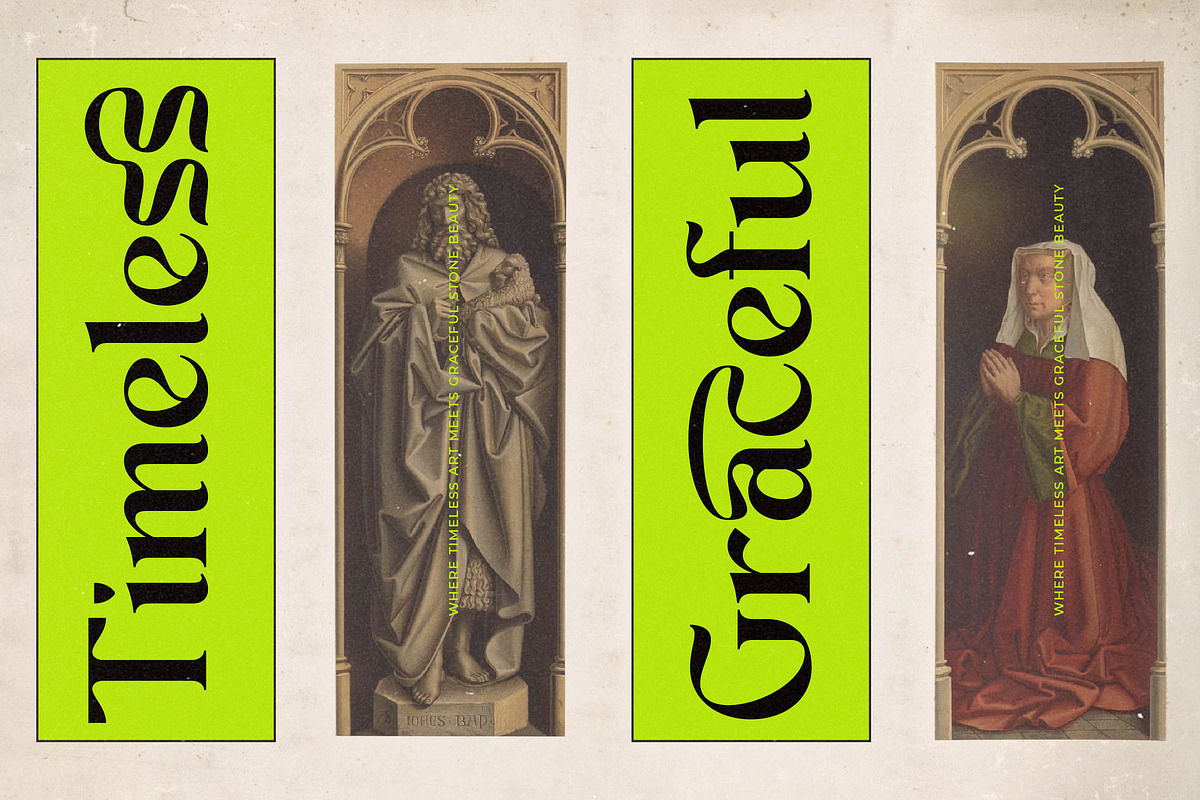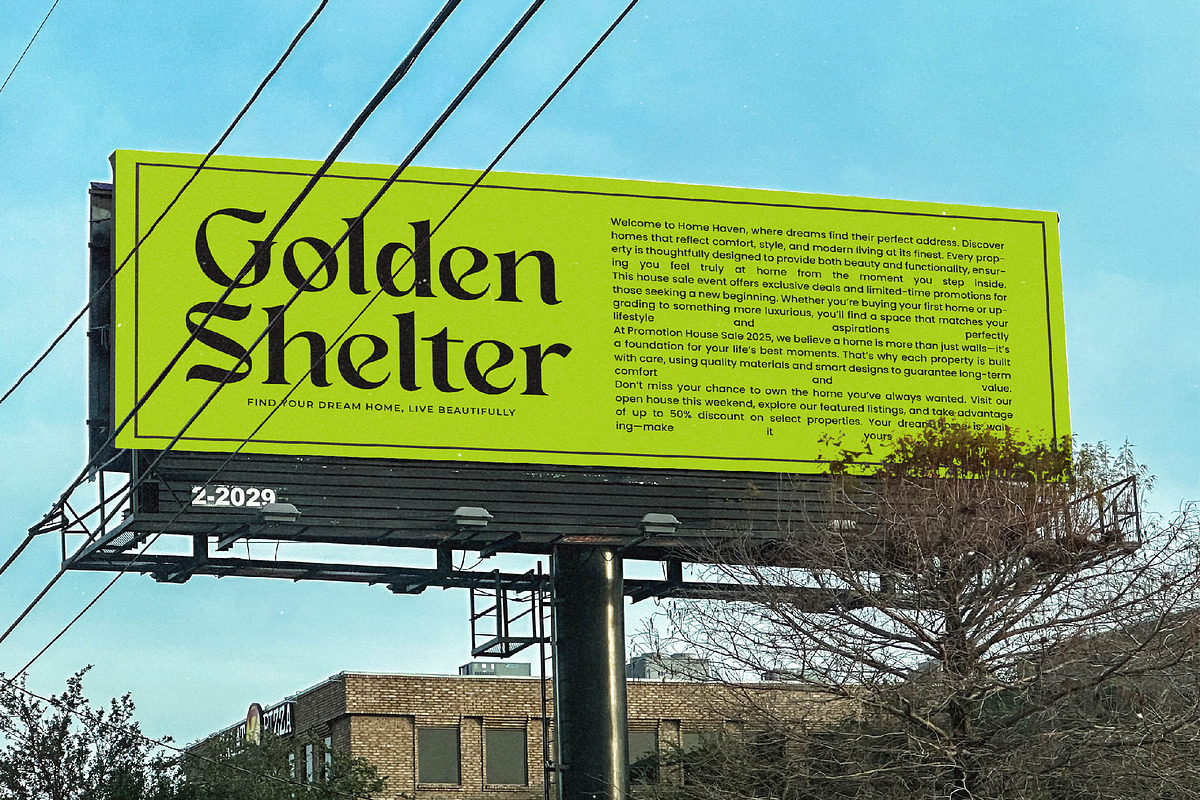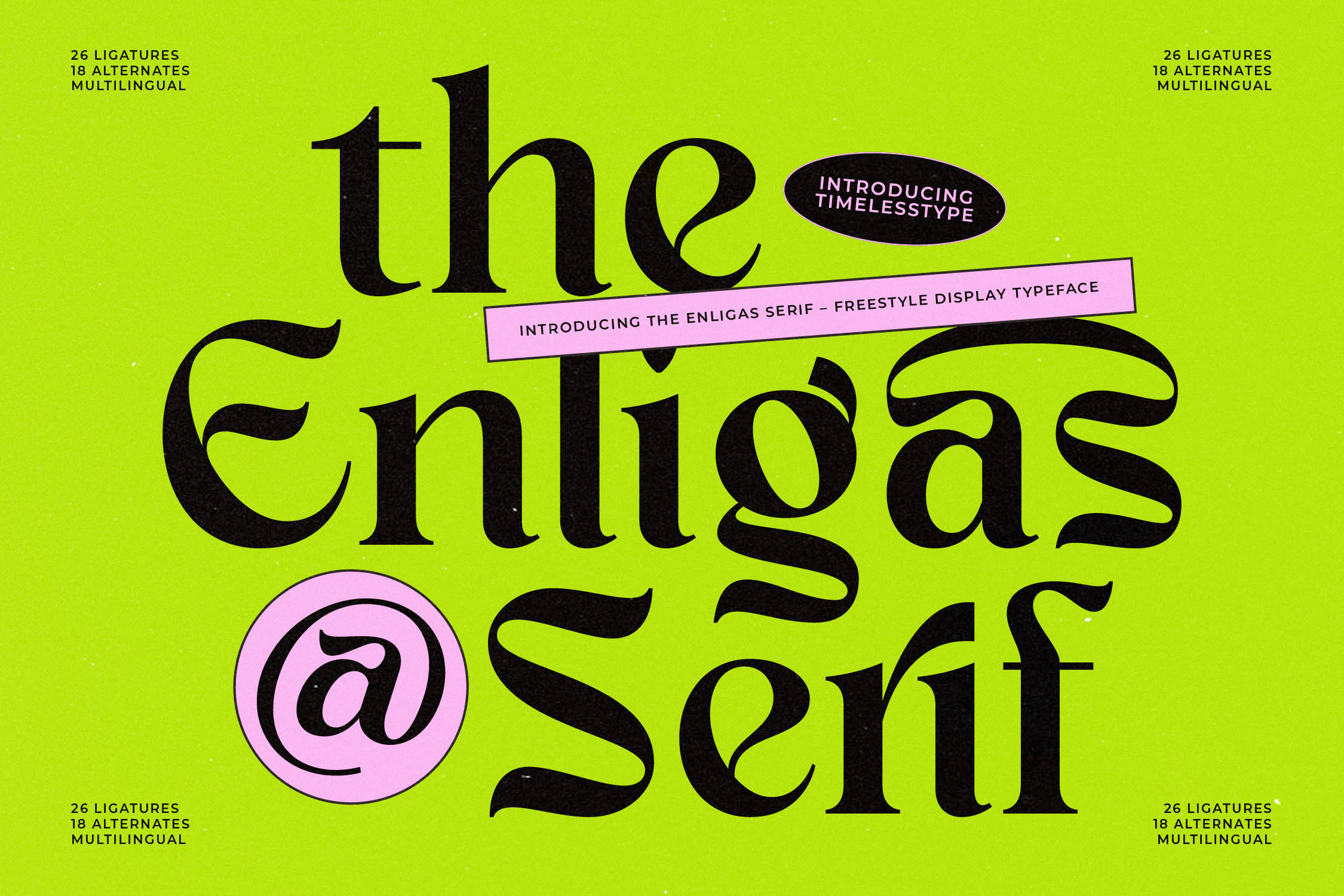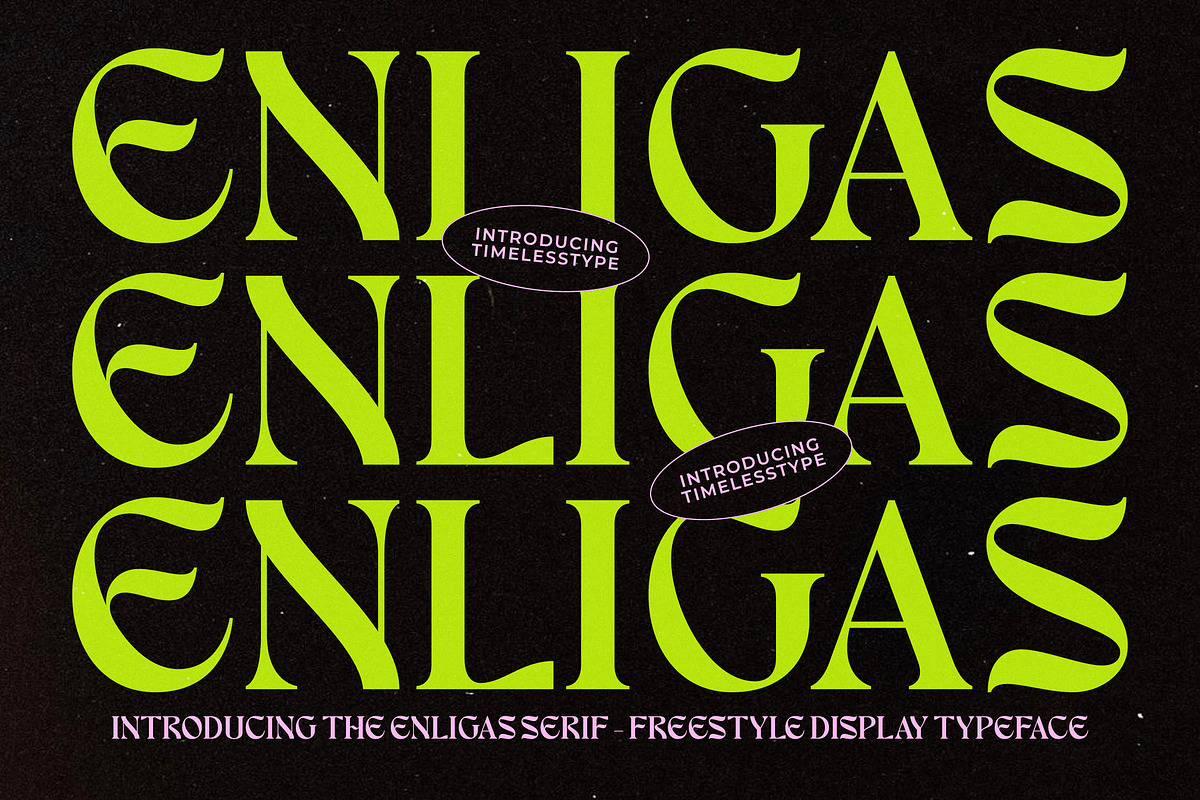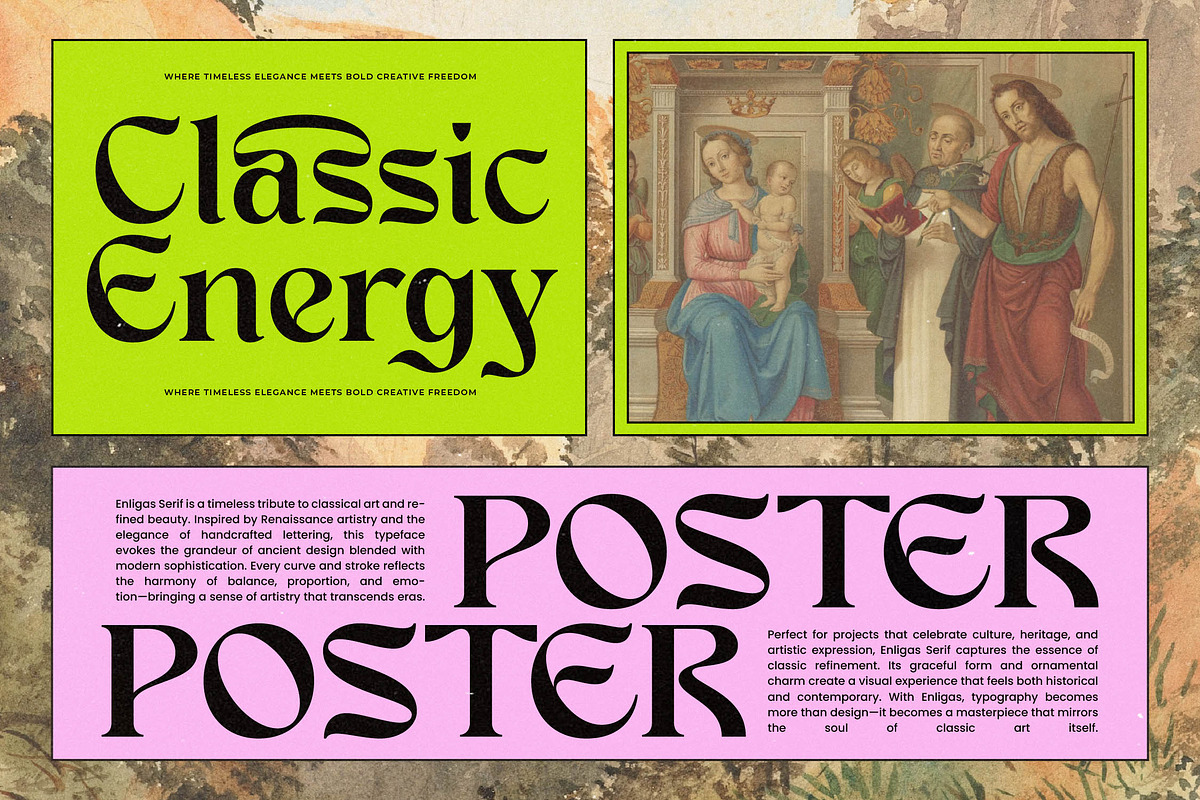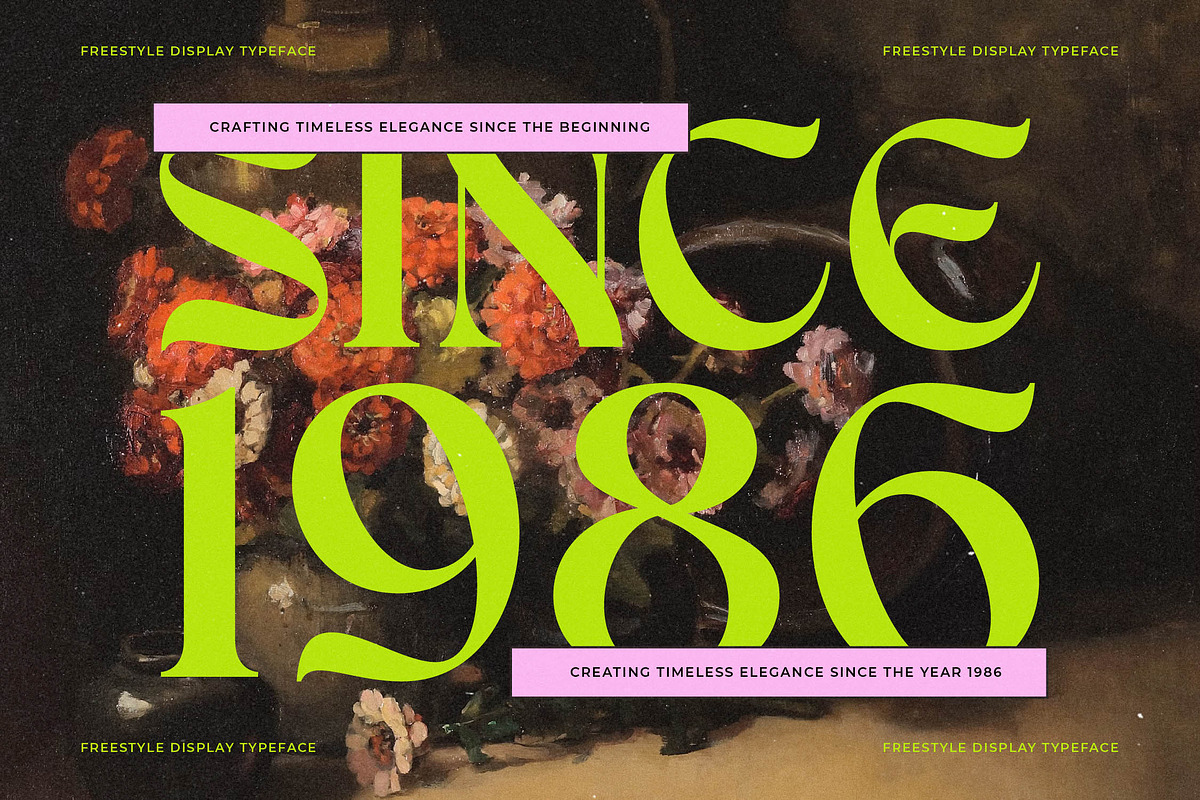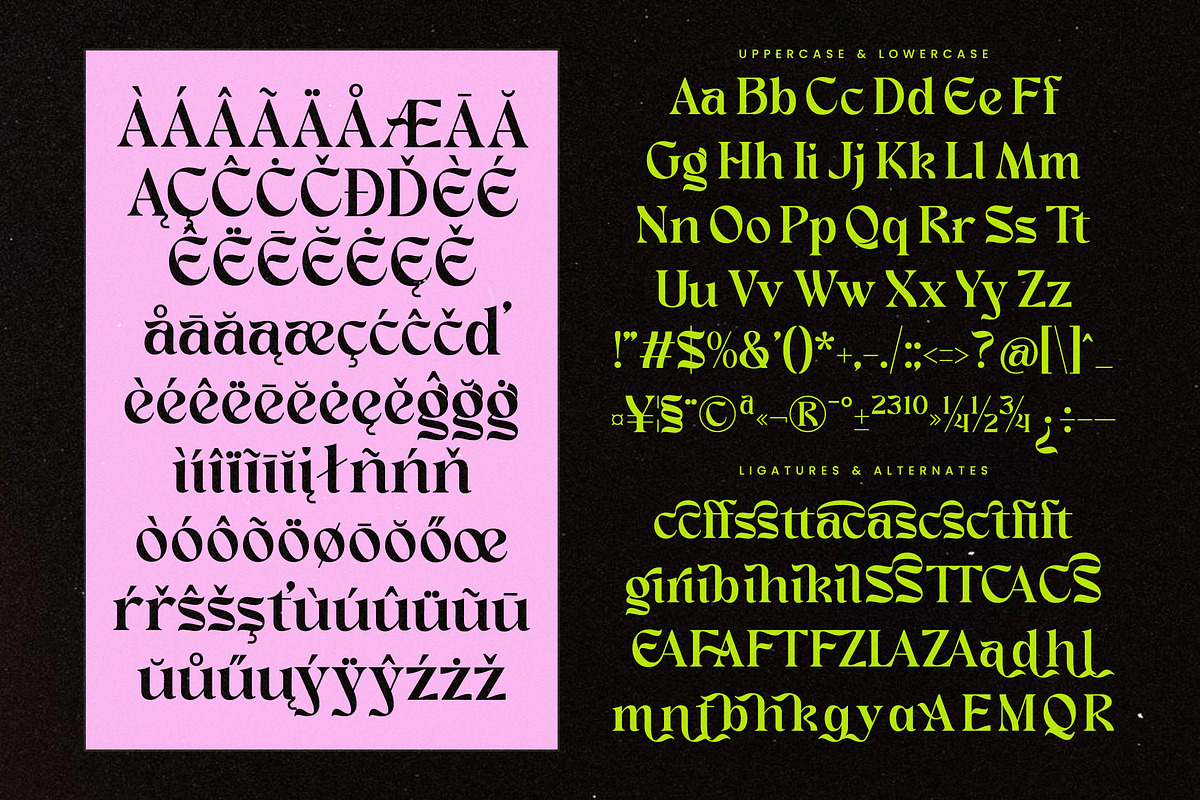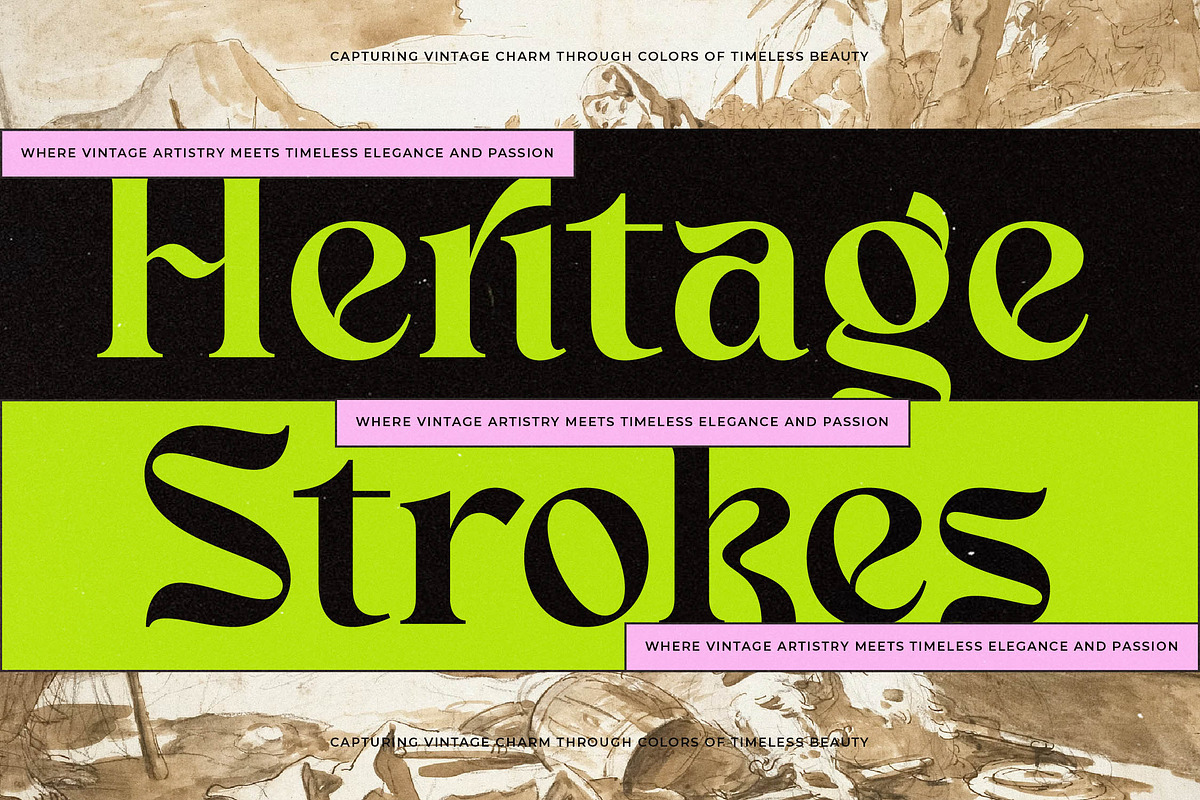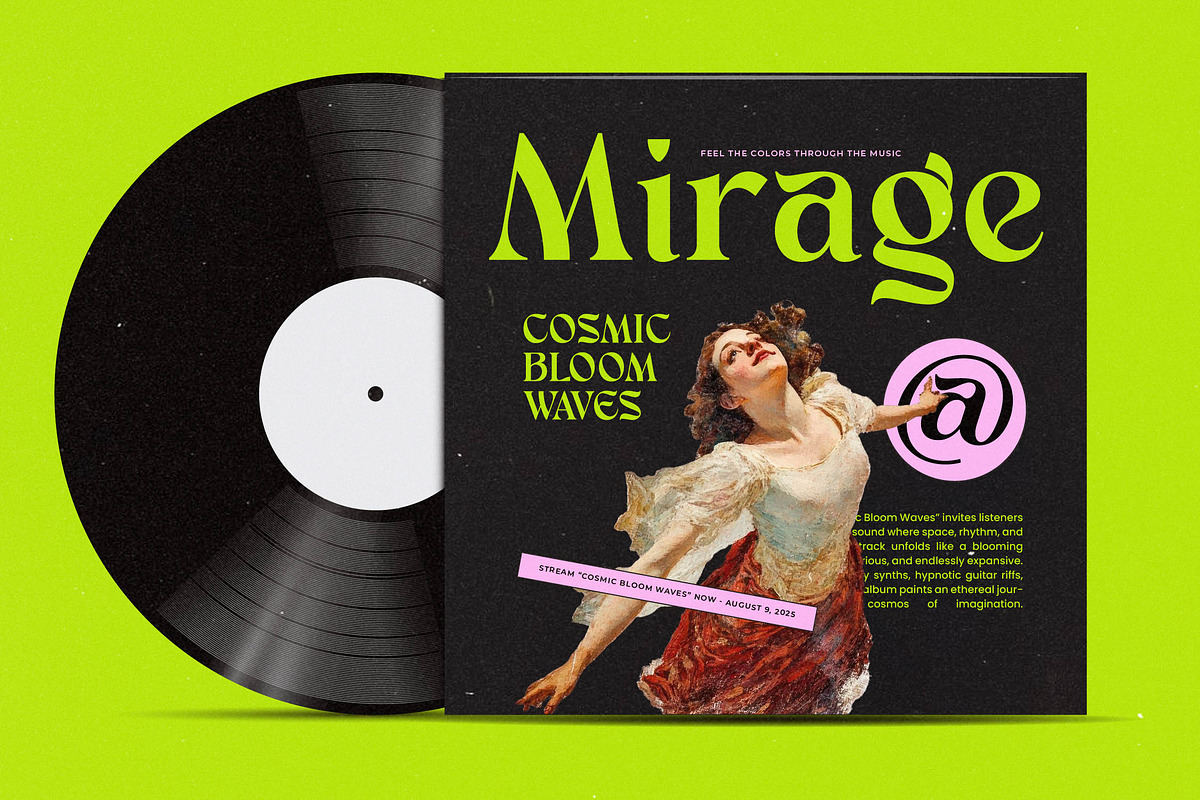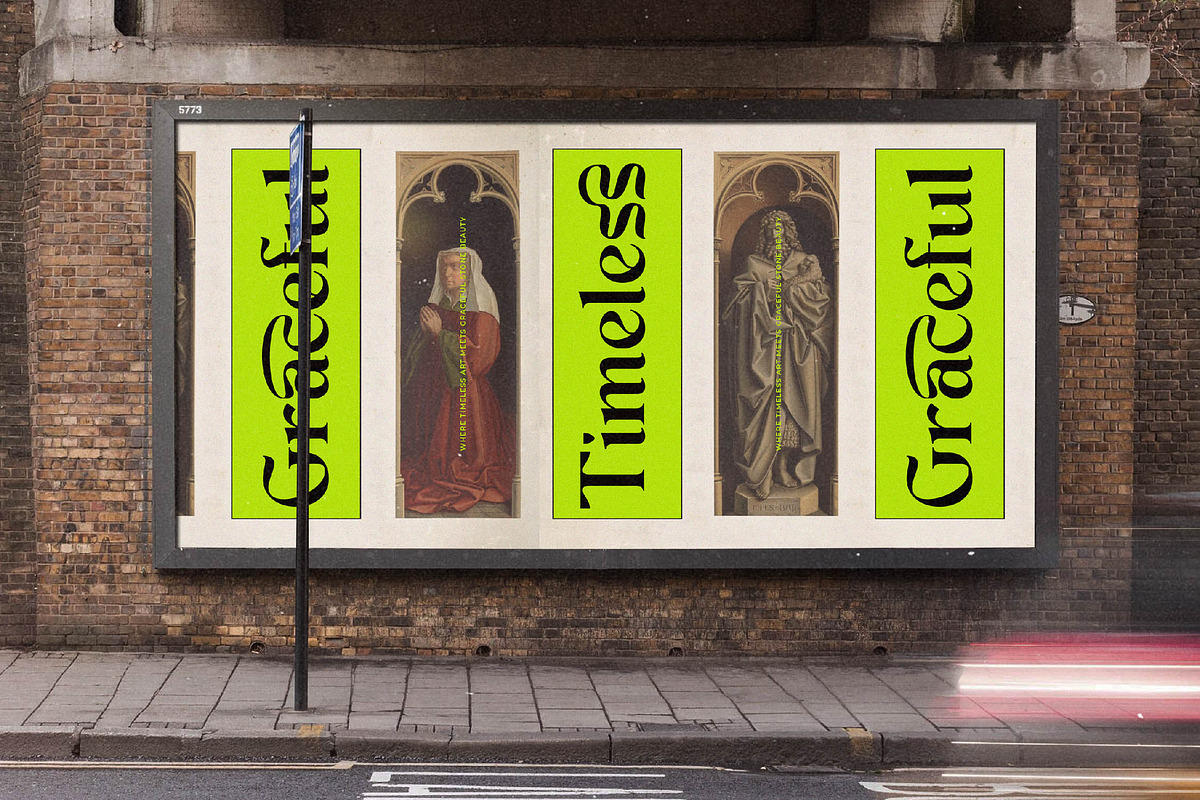
Enligas Modern Serif Display Font
Enligas is a visual symphony where liquid curves meet sharp precision, defining a new era of sophisticated expression. This Enligas serif typeface captures the essence of contemporary elegance with its fluid motion and unmistakable presence.
Inspired by the intersection of high-fashion editorial layouts and the organic flow of nature, this font was born to bridge the gap between classic structure and avant-garde energy. Every stroke reflects a balance of electric vitality and timeless poise, making it more than just a tool, but a statement of artistic intent.
As a modern serif display, this typeface commands attention through its luxury typography and high-contrast serif details that provide a maximum branding impact. It is an essential editorial font for designers who need to convey confidence and individuality through bold, sweeping curves and graceful letterforms.
Tapping into the current modern serif trend, this collection of editorial display fonts excels in the realm of character-driven typography that prioritizes uniqueness. It meets the demand for high-fashion aesthetics that feel both nostalgic and futuristic, ensuring your designs remain at the forefront of the industry.
Perfectly suited for high-end logo design and comprehensive branding systems, it adds a touch of sophistication to editorial layouts and luxury packaging. Whether used for a wedding invitation suite or a haute couture fashion campaign, it elevates every project with its refined and fierce personality.
The font includes an extensive library of 26 ligatures and 18 unique alternates to provide endless creative possibilities. With full multilingual support and a wide array of international characters, plus decorative swashes, it offers global versatility for professional designers across all mediums.